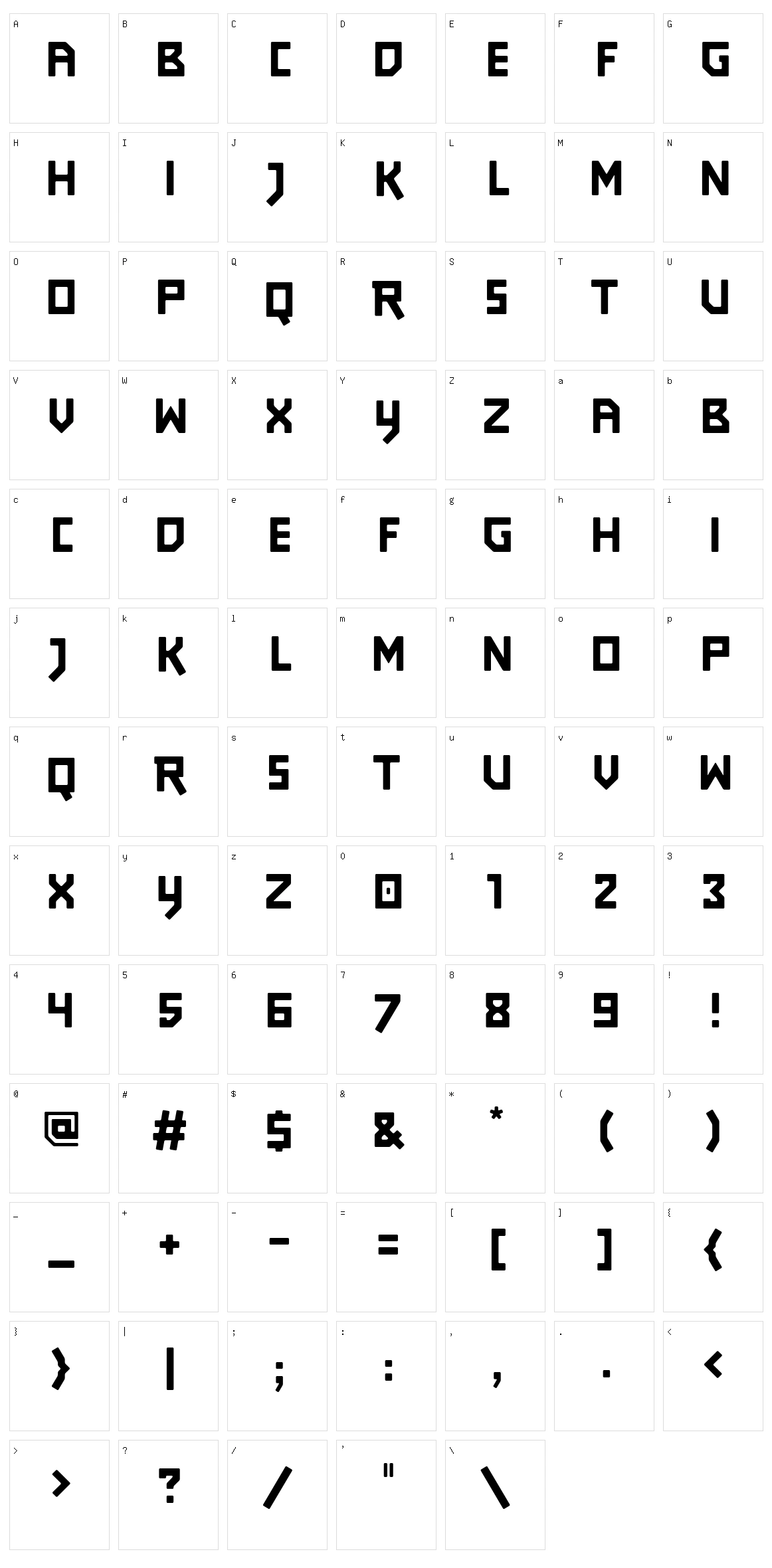
Journey PS3
Designed by: Hauke Petersen
< --- JourneyPS3 Font by Hauke Petersen --- >
This font is based on the title card of the Video Game "Journey"
by thatgamecompany for PlayStation 3. The 7 letters within the
game's name use and original design and are not part of complete
font set. Since it looks so nice, I decided to create a full-
fledged font by creating the remaining characters based on the
official design.
I used a vector image file from an official press kit released by
thatgamecompany. Using vector graphics editing software I created
the remaining letters, numerics and parenthesis based on the
official characters. I have created only the most common characters
you'd find on a standard US keyboard.
In the next Step I exported the characters into single files and
imported them into a very old yet neat font creation software
called "Manutius". After rezising the characters and setting the
correct spacings the font was saved as PostScript font format.